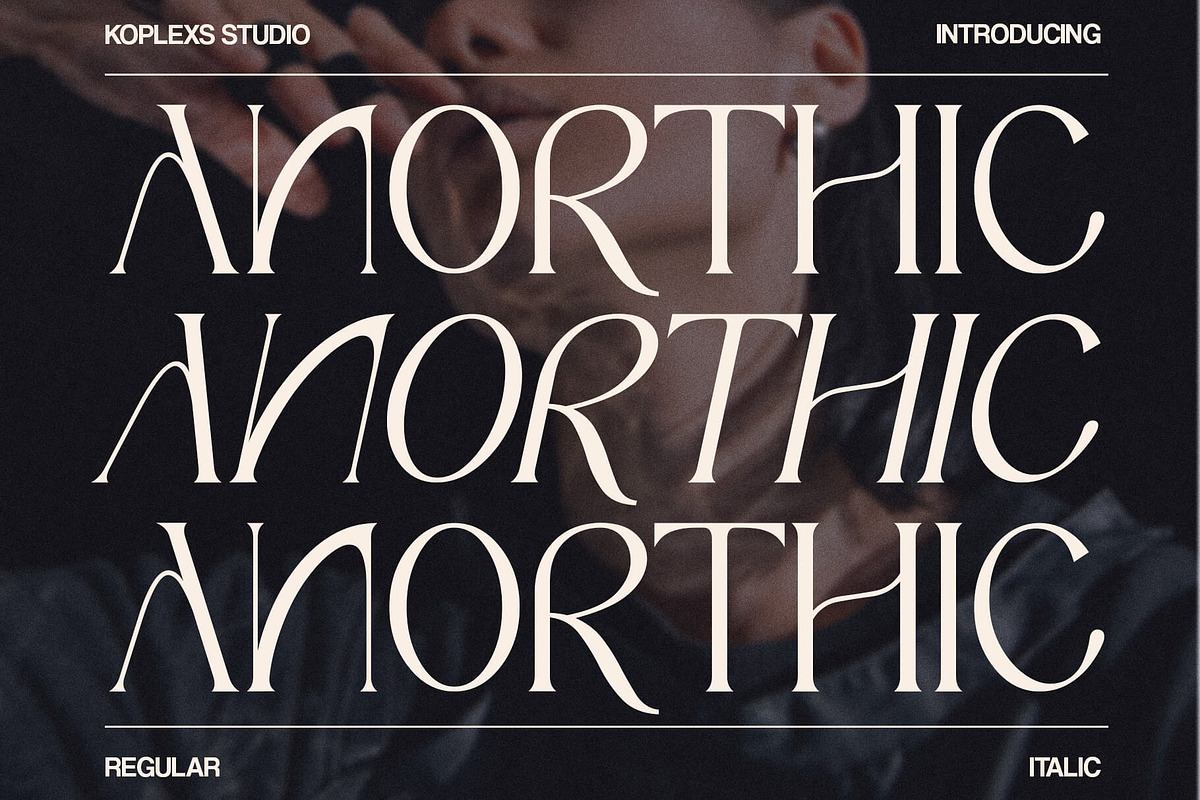
Anorthic - Modern Serif Font Free Download is a sleek and contemporary serif typeface designed for high-end, professional design projects. With its clean lines, sharp serifs, and modern structure, this font is perfect for branding, editorial layouts, website headers, and luxury product packaging. Its versatility makes it suitable for both print and digital applications, offering an elegant yet readable design.
Anorthic - Modern Serif Font Free Download blends traditional serif aesthetics with a minimalist, modern twist, making it ideal for creative professionals who want to convey sophistication, clarity, and style in their typography.